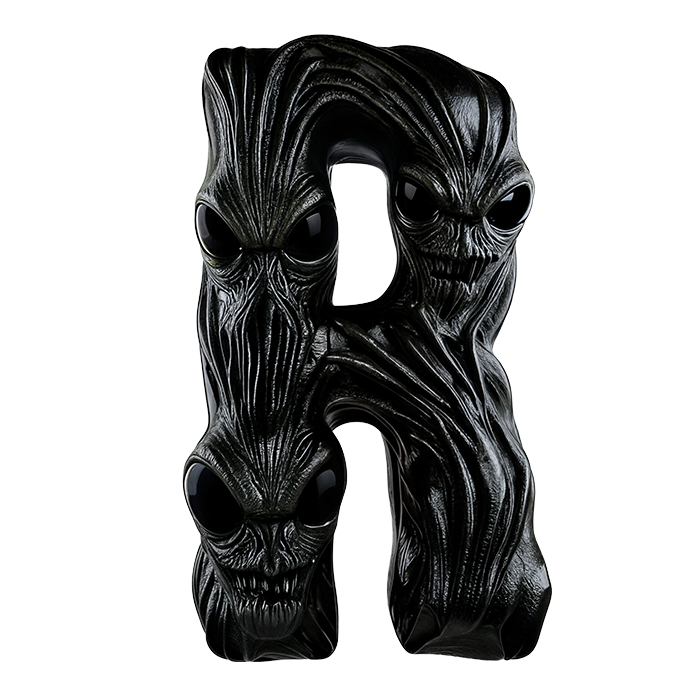
Alien Font. Glossy Black Carapace and Sinew
Capitals grown from glossy black alien anatomy: ribs and tendons running along every stroke, elongated skulls fused into the counters and a few limbs ending in claws. A bold slab shape holds underneath, so words still read fast at speed. Eight alien portraits and two hand studies come with the set, ready to drop straight into a layout.
Letters Grown, Not Drawn
Each capital looks like something that hatched into the shape of a letter. Ribs, tendons and elongated skulls fuse along every stroke, and a few limbs end in curled claws. The silhouette still holds a bold slab underneath, so words stay readable at a glance. Look at the G, for instance, and you will find two faces stacked inside it. Because no glyph repeats the same anatomy, a headline never looks tiled.
Wet Black Shell Over Ribbed Sinew
The finish is wet black, closer to carapace than to paint. A hard rim light traces every ridge, meanwhile, which is what makes the forms read at small sizes. Shadows also sink deep into the grooves between the ribs. On white the letters cut out sharply, though on pink or red they turn genuinely lurid. The blacks never go dead flat.
Animated preview showing letters of the Alien Font being typed.
Alien Font for Horror, Sci-Fi and Streetwear
Horror and sci-fi work is the obvious home for the Alien Font, of course. Samples here cover a framed street sign, a record sleeve, two white tees and a bright pink layout. Film titles, game covers, gig posters and streetwear all take it easily. Halloween projects use it too, since the shapes are creature-based rather than gore-based. Give it a plain background, then plenty of size.
Portraits, Hands and the Alien Font Files
Pale cover artwork spelling FONT in black creature letters of the Alien Font.
Letters, numerals and symbols of the Alien Font on a pale background.
Framed street sign with a three-letter word set in the Alien Font.
Eight black-and-white alien portrait panels included with the Alien Font.
Bright pink layout with a three-line phrase about Earth set in the Alien Font.
Orange poster on stone steps showing a single letter S from the Alien Font.
Two detailed black alien hand illustrations included with the Alien Font.
At sign and letter G on red, showing fused faces in the Alien Font.
Two hanging white t-shirts printed with single letters from the Alien Font.
Dark vinyl sleeve mockup with a three-word title set in the Alien Font.
Letters A to D and numerals 1 to 4 of the Alien Font on a transparent background.